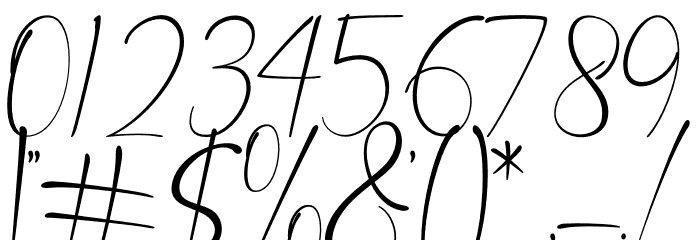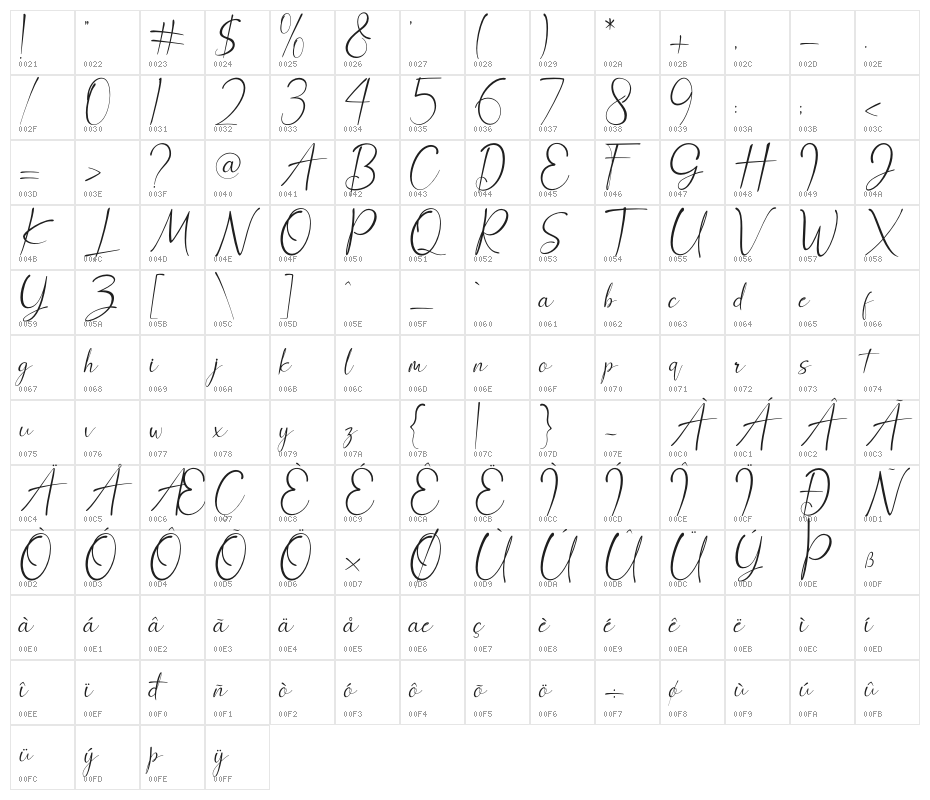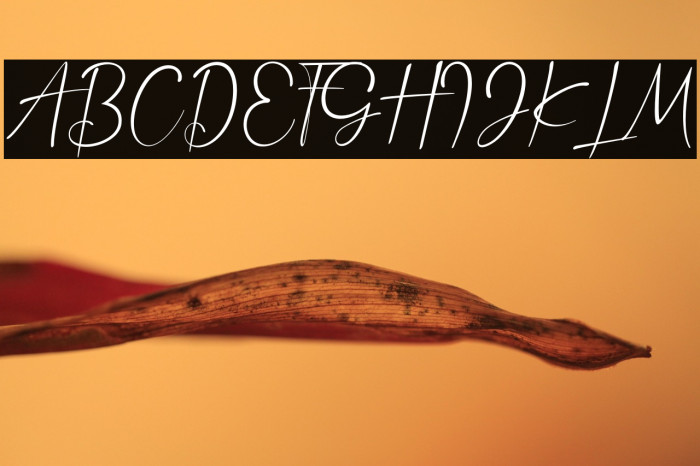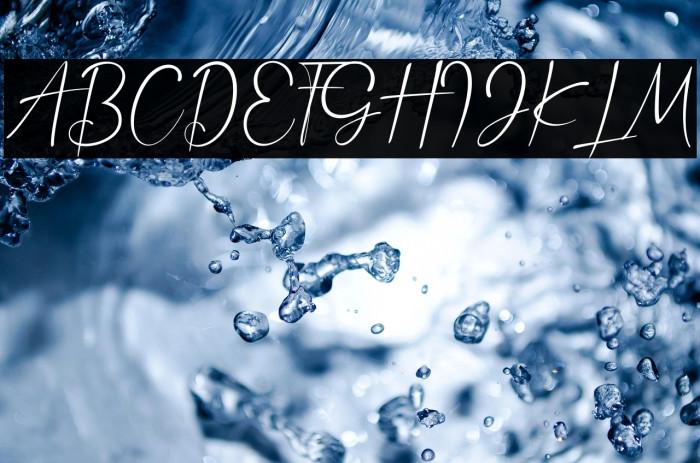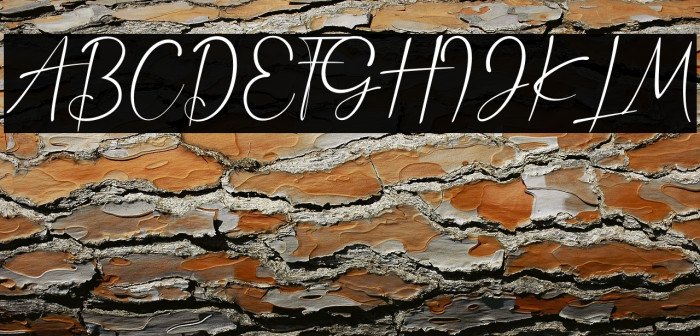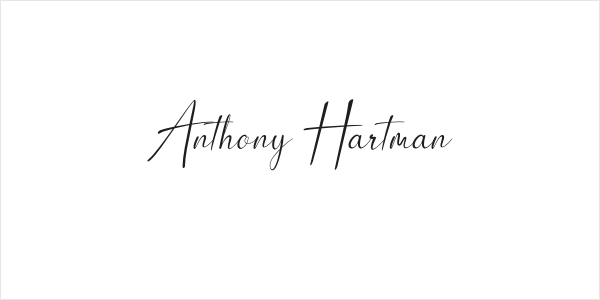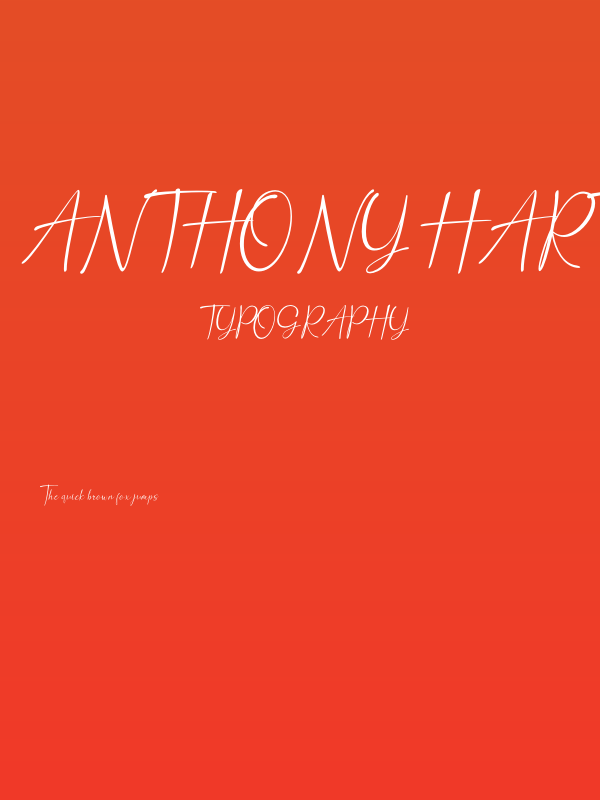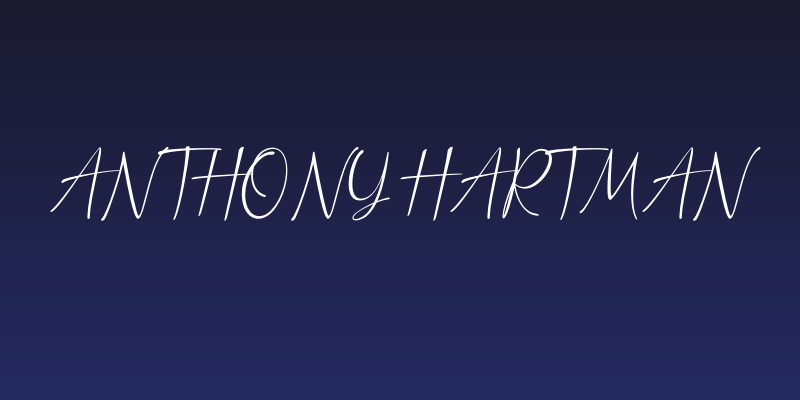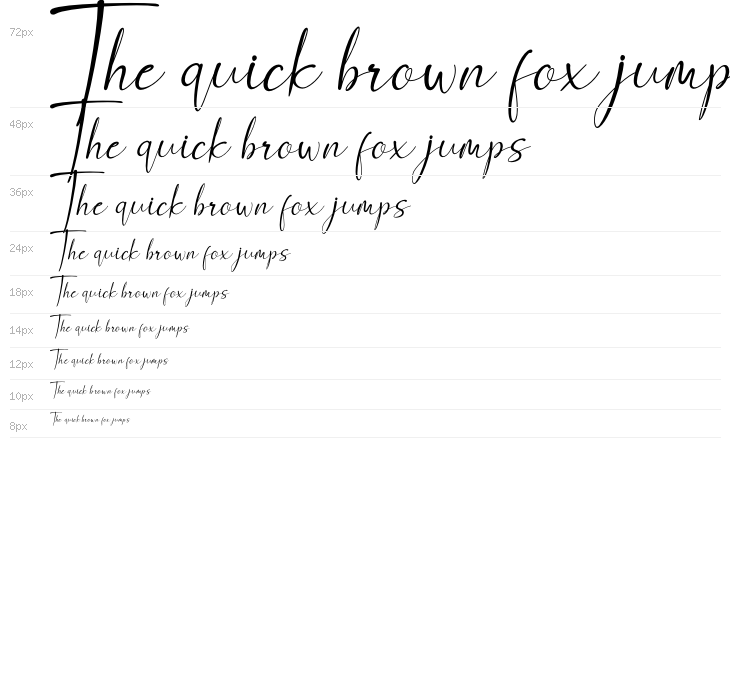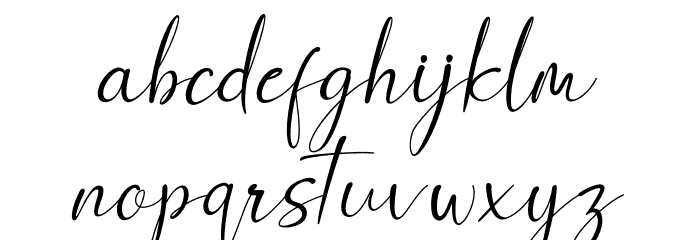
Anthony Hartman Font
Anthony Hartman Description
This font features an elegant, flowing script style that mimics the fluidity of natural handwriting. The uppercase letters are tall and slender, with graceful curves and loops that add a touch of sophistication. The lowercase letters maintain a consistent style, with smooth connections and a slight slant, enhancing the handwritten feel. Numbers and special characters are designed to complement the overall aesthetic, maintaining the same fluid and elegant strokes. The font's design is both artistic and legible, making it suitable for a variety of creative applications.